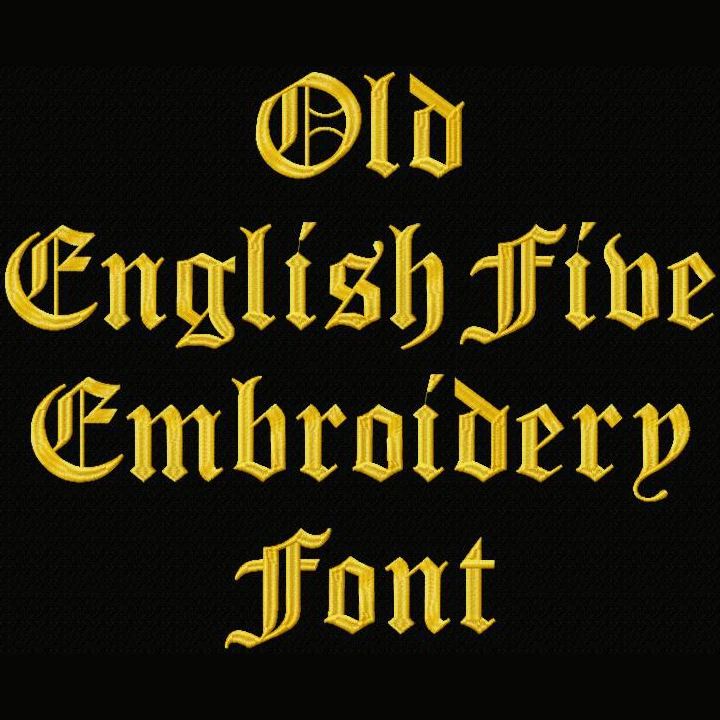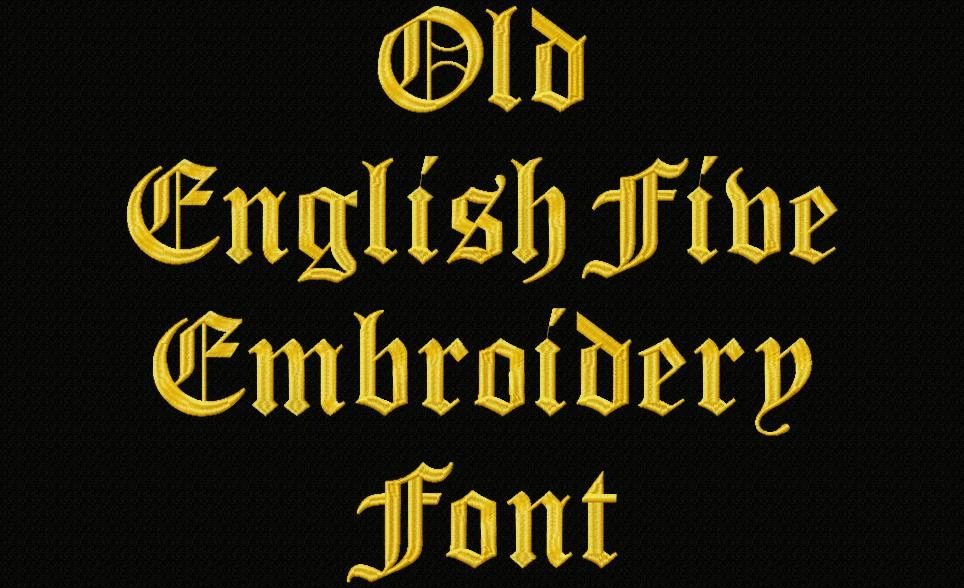
Title: Old English Five machine embroidery font
This beautiful Old English font is perfect for personalizing clothes, bags, towels and linens!
Carefully digitized to ensure a high quality finish, this font set comes in five sizes